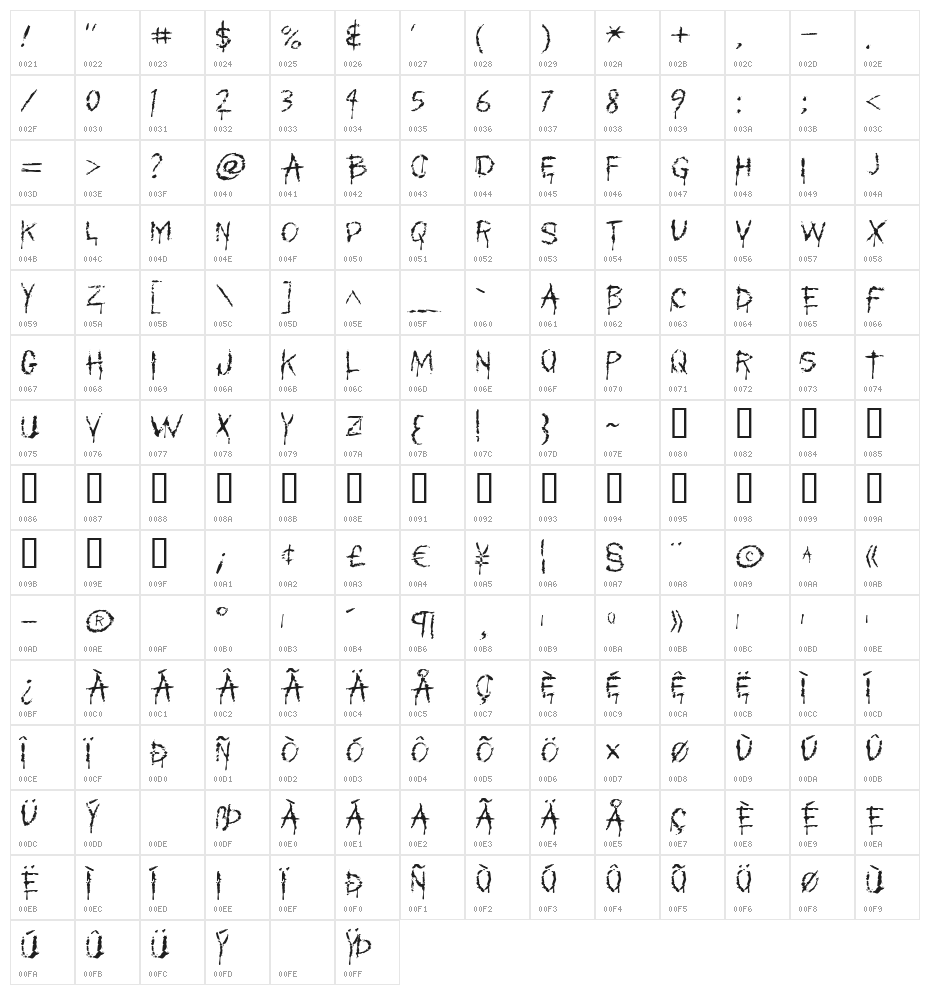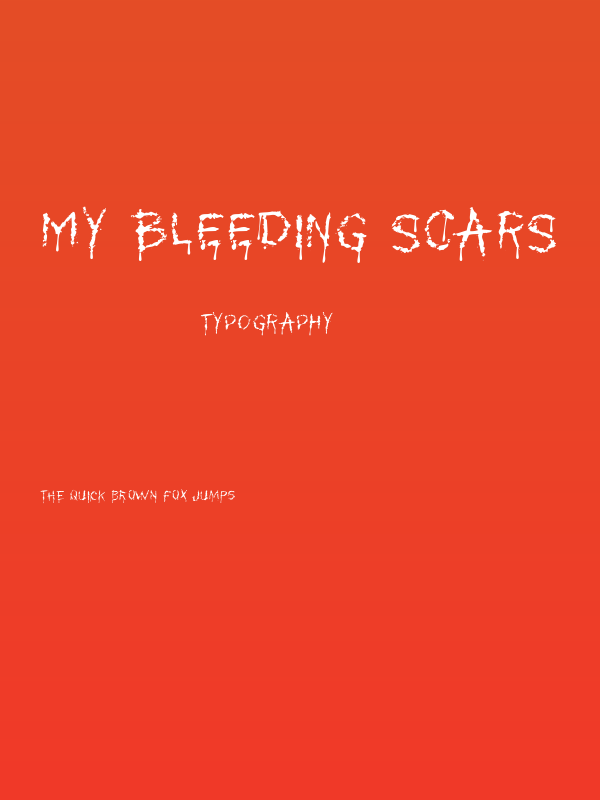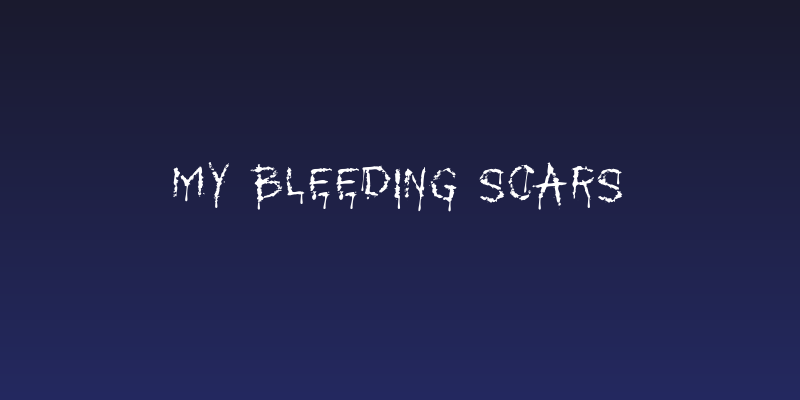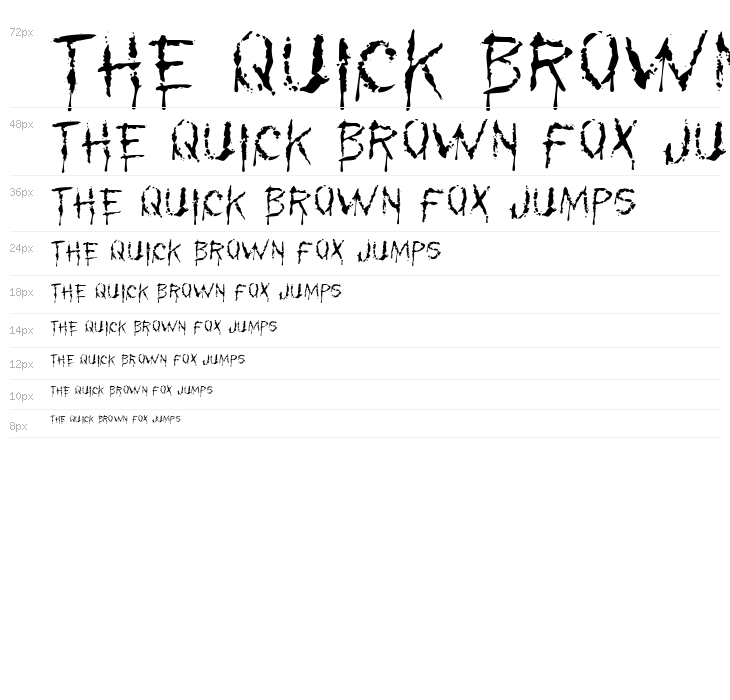
My Bleeding Scars Font
| 整体风格 | Grunge, Edgy, Distressed |
| 推荐项目 | Ideal for horror movie posters, rock band album covers, edgy fashion branding, or Halloween event flyers. |